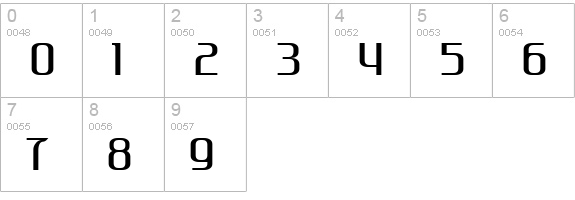
Gputeks Bold is a strong, high-contrast variant in the Gputeks typeface family \xE2\x80\x94 well suited to headlines, attention-grabbing titles, and strong calls-to-action.
Introducing Gputeks Bold, a powerful and visually striking font that is sure to make a bold statement in any design project. This font exudes confidence and commands attention with its strong, thick lines and bold presence. With its modern and sleek design, Gputeks Bold is the perfect choice for headlines, titles, and logos that need to make a lasting impression. Whether you're creating a poster, a website, or a branding project, this font will add a touch of sophistication and professionalism to your work. What makes Gputeks Bold even more impressive is that it is freely available to download at FontsMarket.com. Yes, you read that right! This stunning font can be yours without any cost, making it a fantastic option for designers on a budget or anyone looking to add a touch of elegance to their projects without breaking the bank. Not only is Gputeks Bold visually captivating, but it also offers a wide range of characters and glyphs, allowing you to bring your creative vision to life. Its versatility ensures that it can be used in various design contexts, from print to digital, without losing its impact. So why wait? Elevate your designs with the captivating power of Gputeks Bold. Download it for free at FontsMarket.com and unleash its potential to transform your projects from ordinary to extraordinary. Let your creativity soar with this remarkable font that combines style, elegance, and affordability in one package.